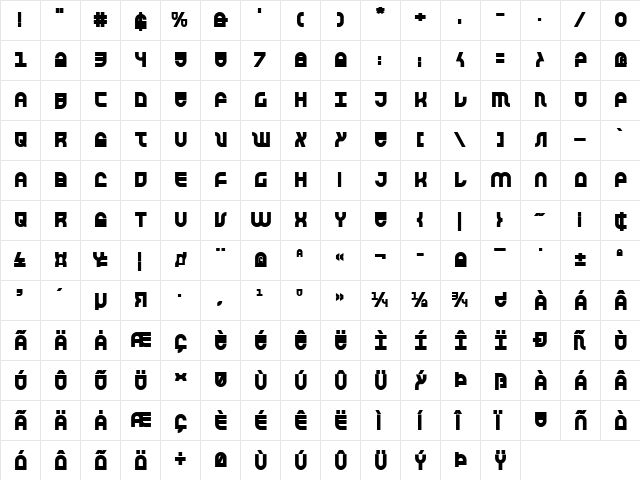
Trek Trooper Bold Bold
Design Context for Trek Trooper Bold Typeface
Trek Trooper Bold is a composed and adaptable typeface that performs quietly and consistently across a wide range of design contexts. The heavy weight commands attention and anchors typographic hierarchies.